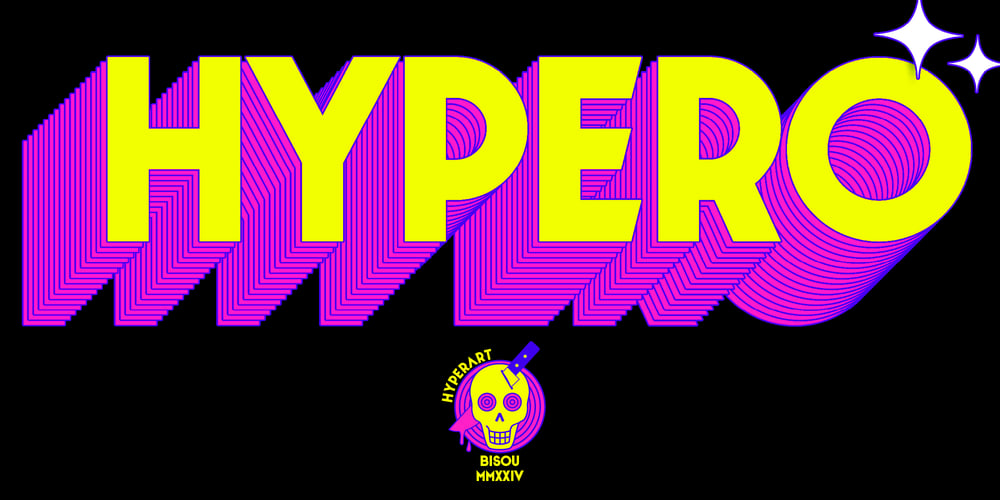
Hypero Font Family was designed by Mathias Antonietti and published by Bisou. Hypero contains 1 styles and family package options. Made in La Chaux-de-Fonds Switzerland, hypero is starts with a simple wish from the hyperdesigner Bisou : make a font with a perfect circle “O”. From that wish all characters will be declined inspired from the restored 4k french edition of Bertolucci’s Novecento poster movie. The result is a bold, straight forward and elegant typeface at the same time.Hypero is thought from ground up to strike with punch. Its hyper geometric shapes make it particularly suitable for architectural drawing titles. It works perfectly with short texts like “ground floor” or “exit”. Just use it in your hotel and see users find the ballroom with ease.